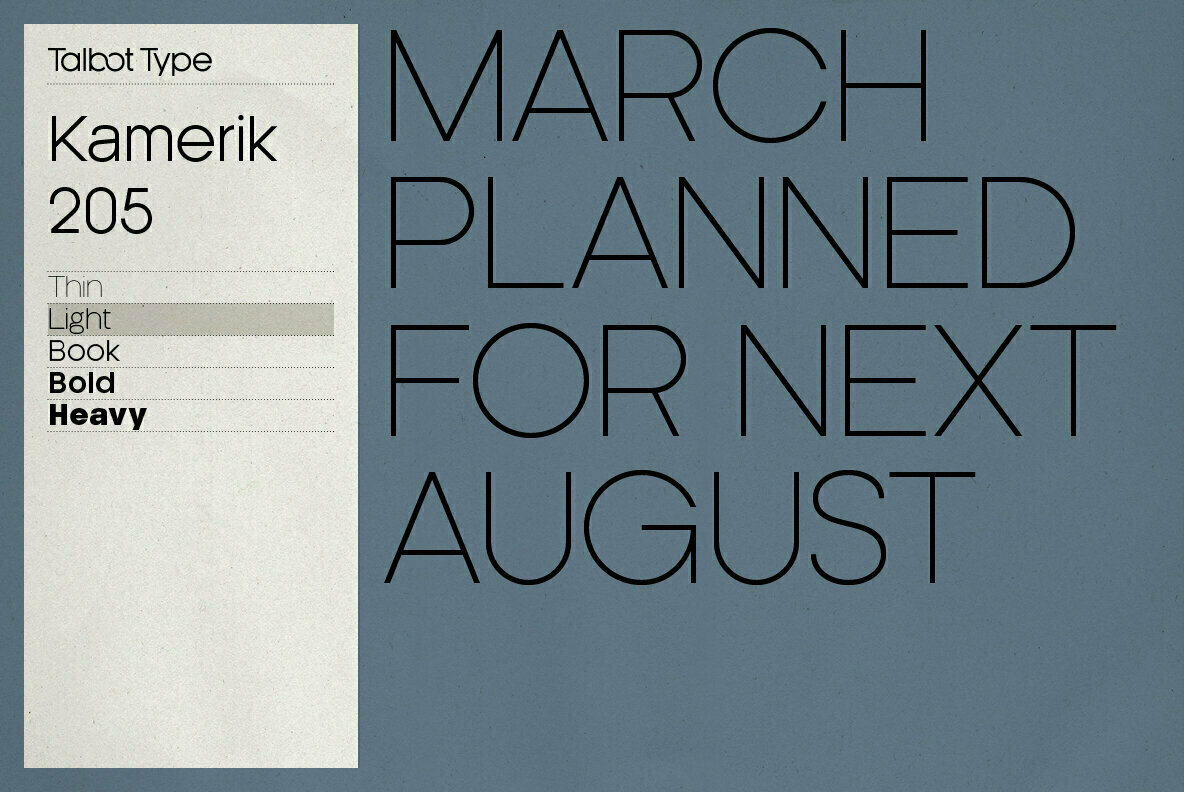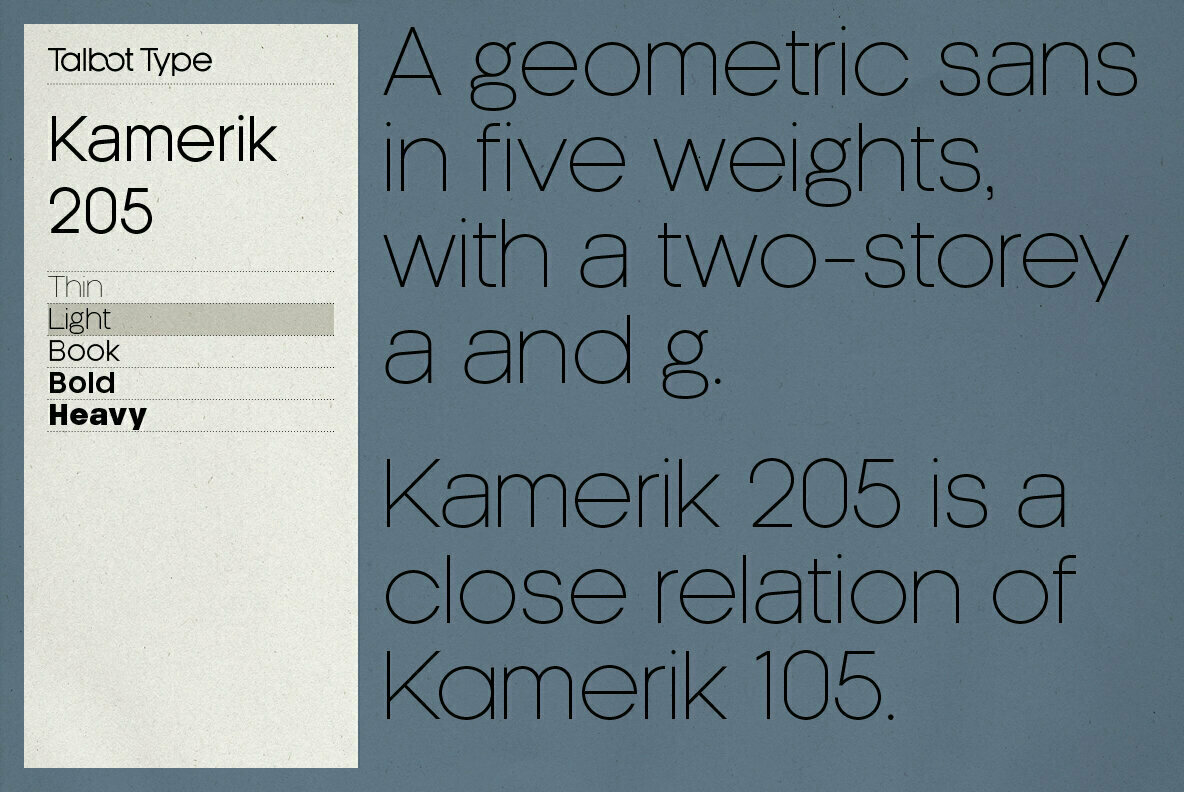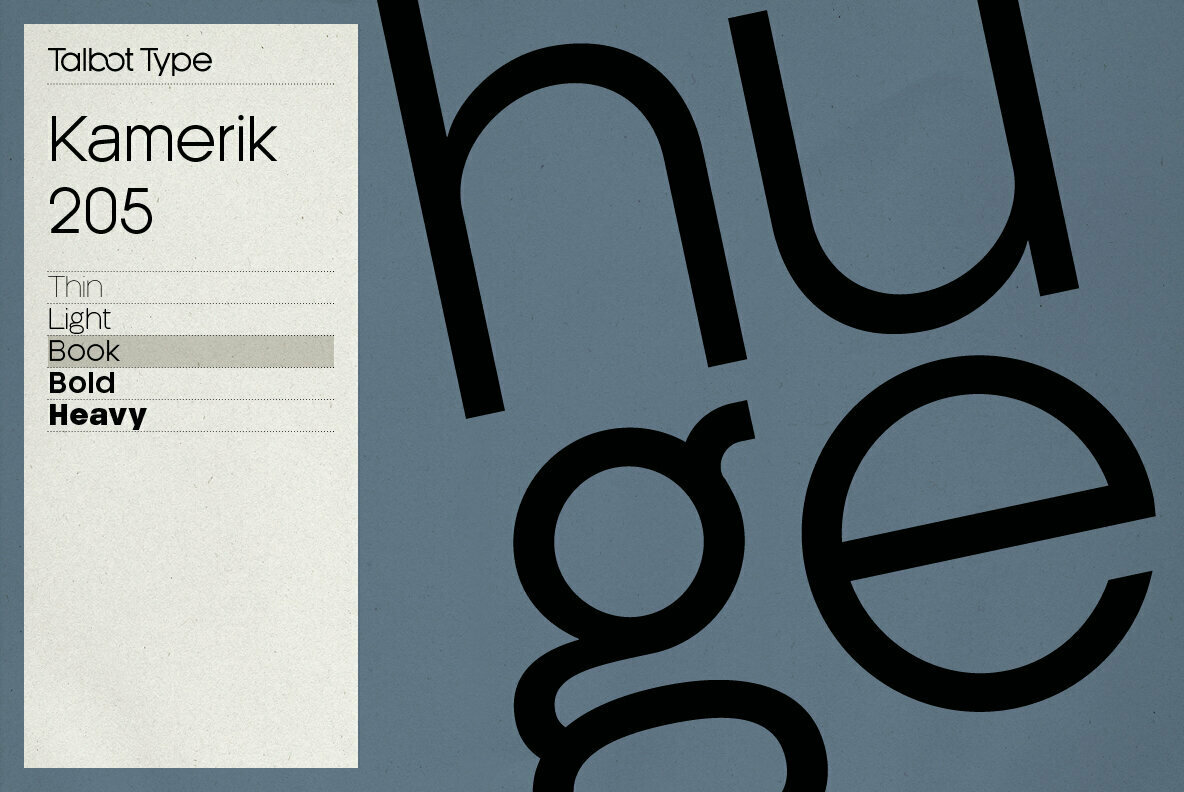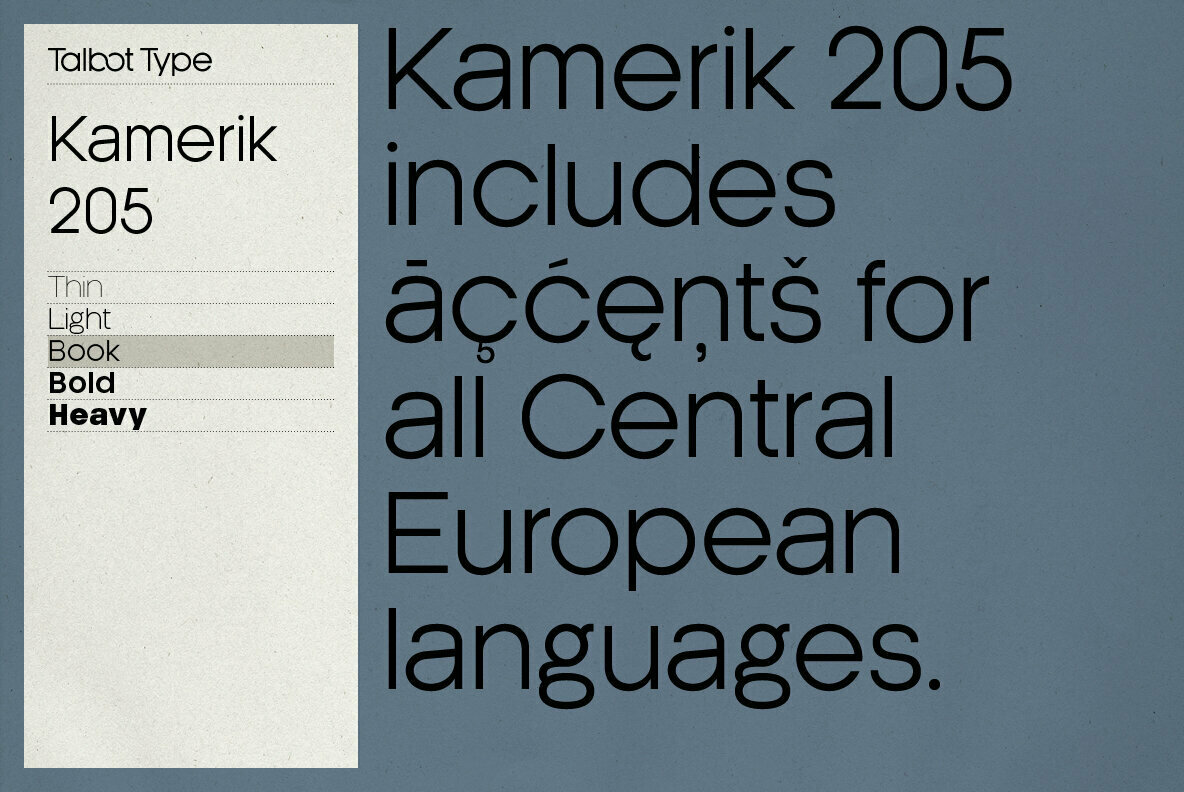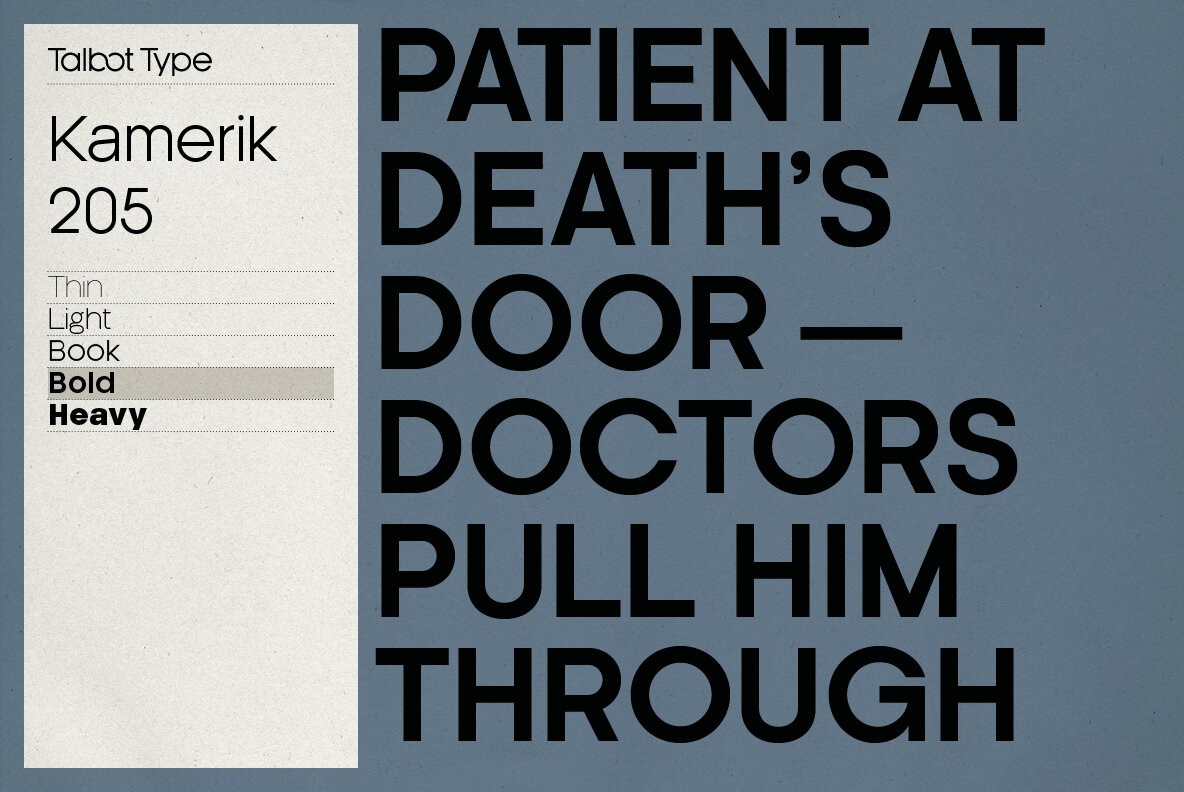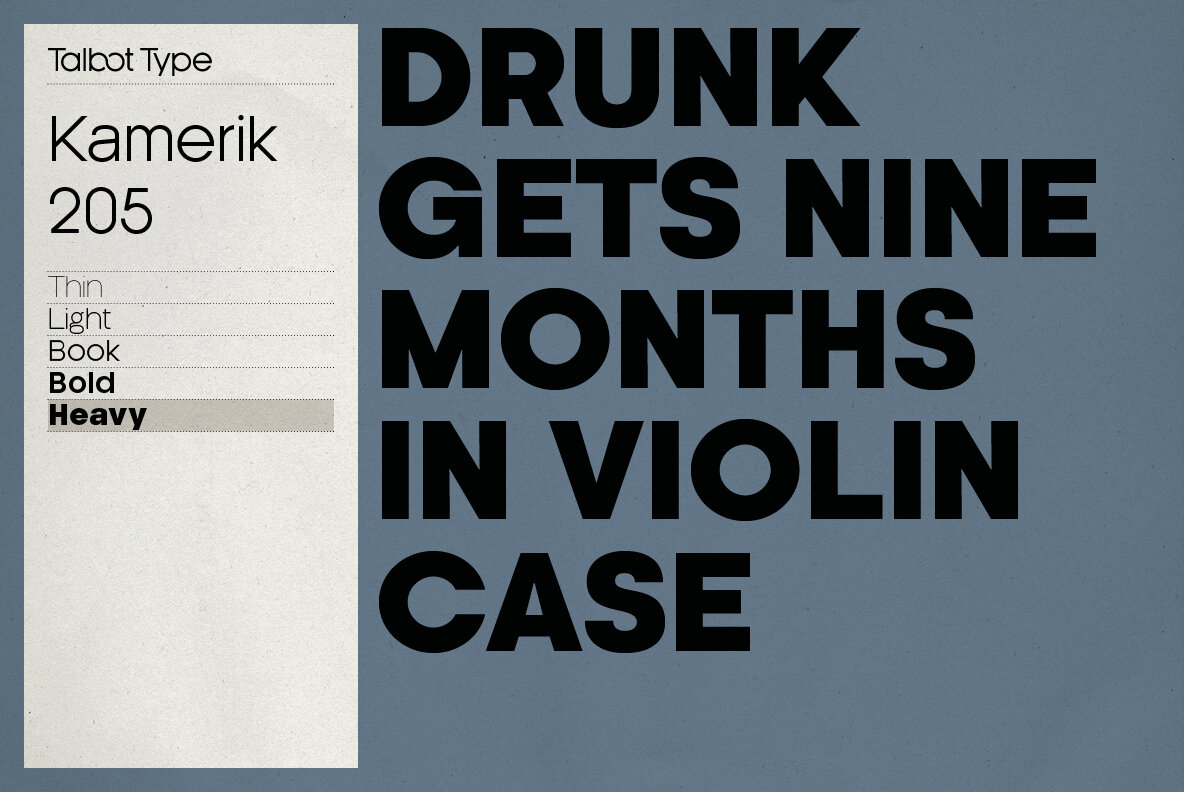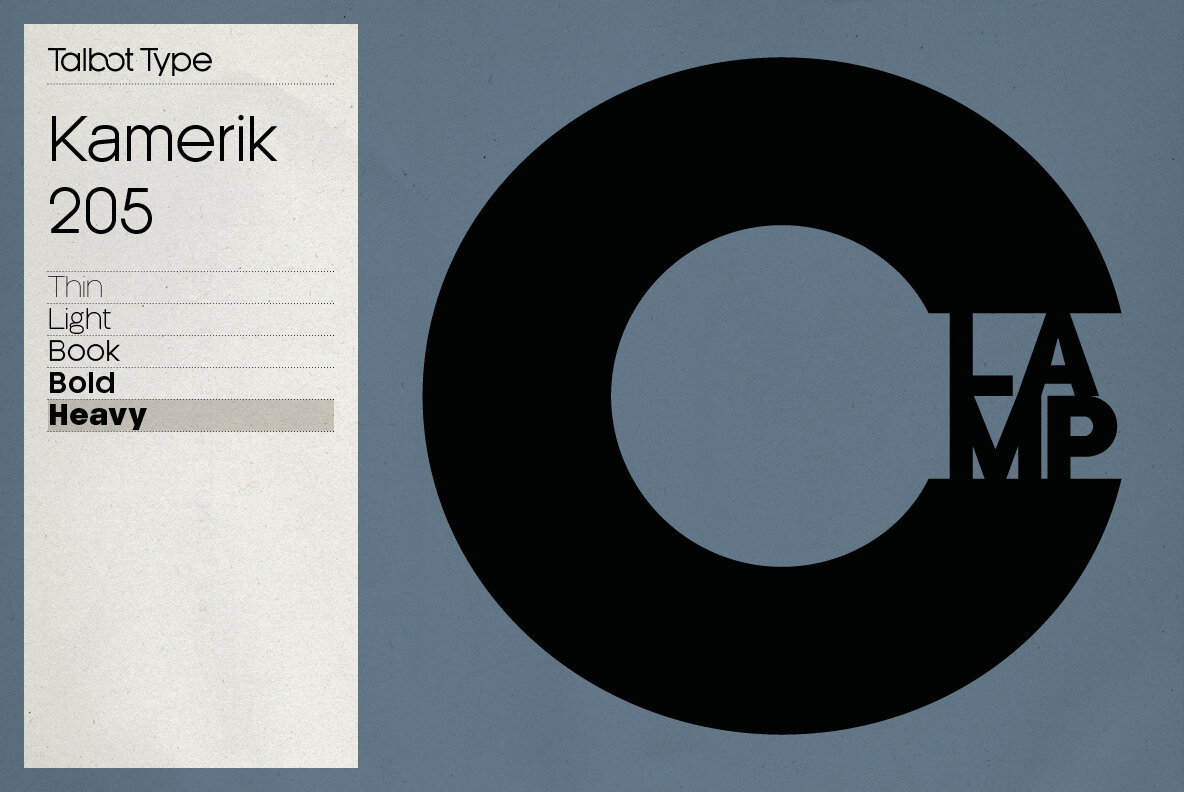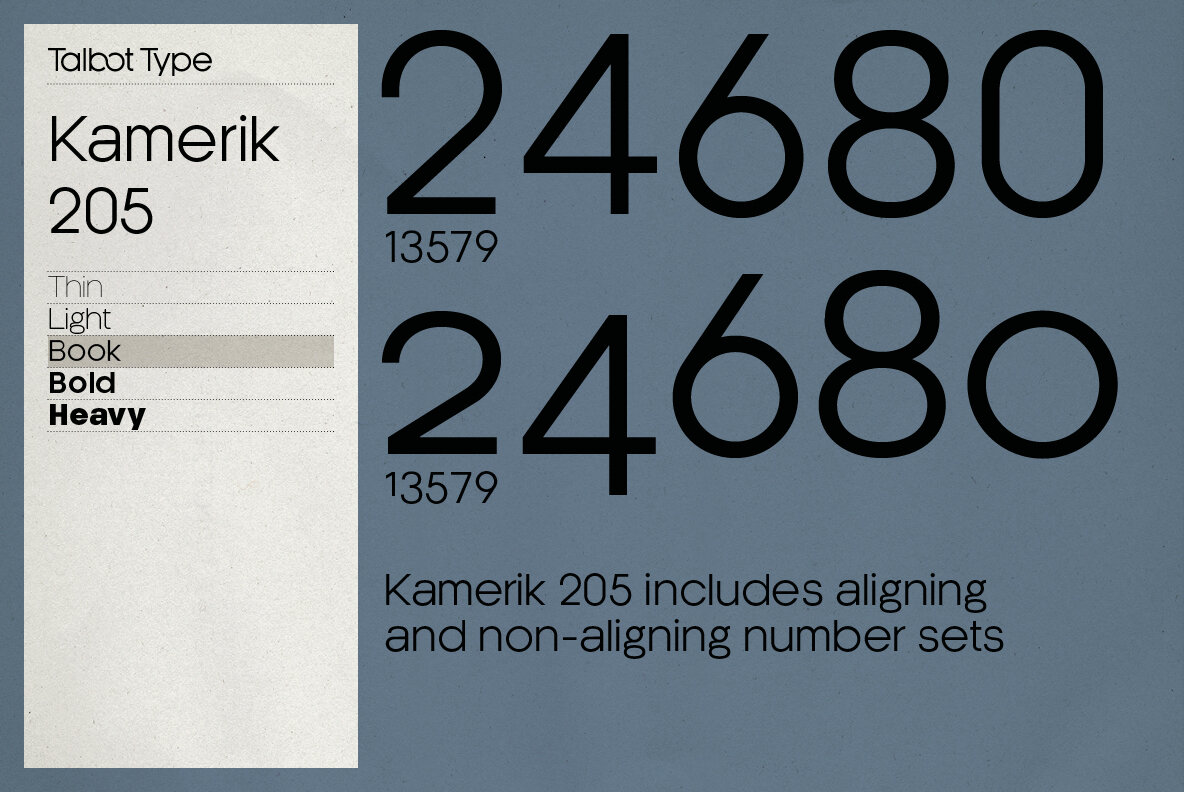
Kamerik 205 Font
Kamerik 205 is inspired by the classic, geometric sans-serifs such as Futura and Avant Garde, but has shallower ascenders and descenders for a more compact look, and features a traditional double-storey lower case a and g. It’s a versatile, modern sans, highly legible as a text font and with a clean, elegant look as a display font at larger sizes. The Kamerik 205 family comprises of six weights, and is closely related to Kamerik 105.
Kamerik 205 features an extended character set to include accented characters for additional Central European languages.